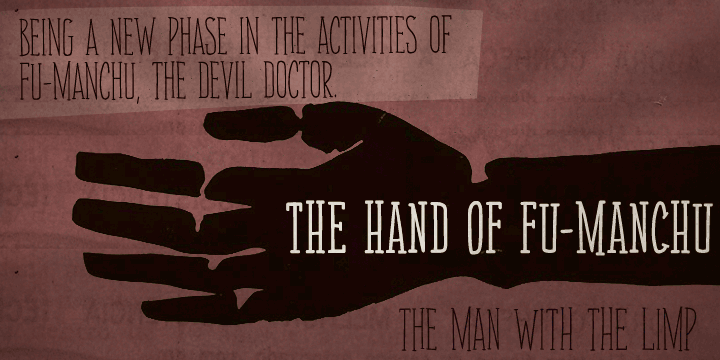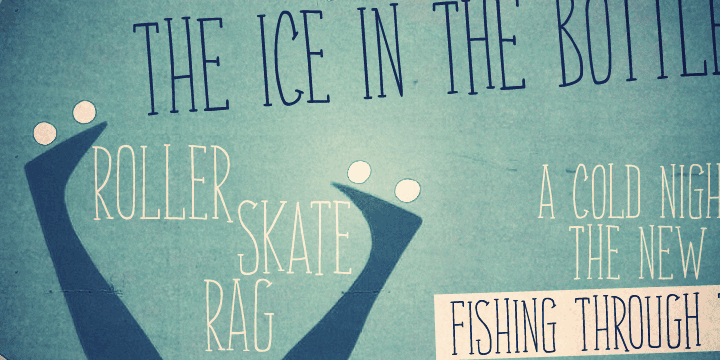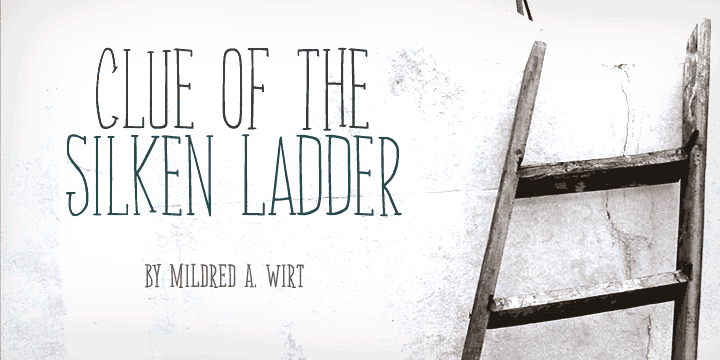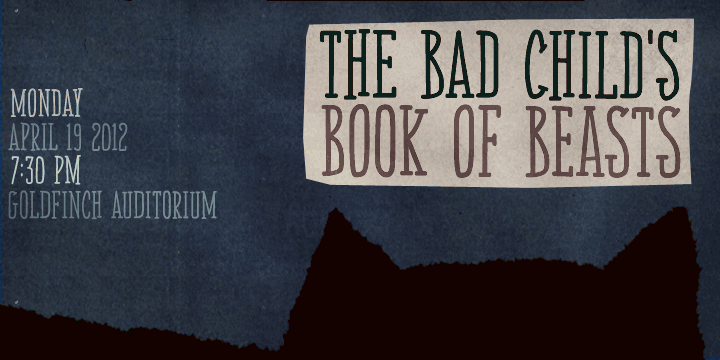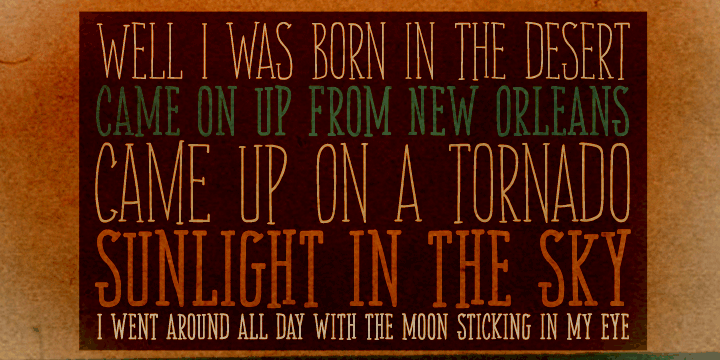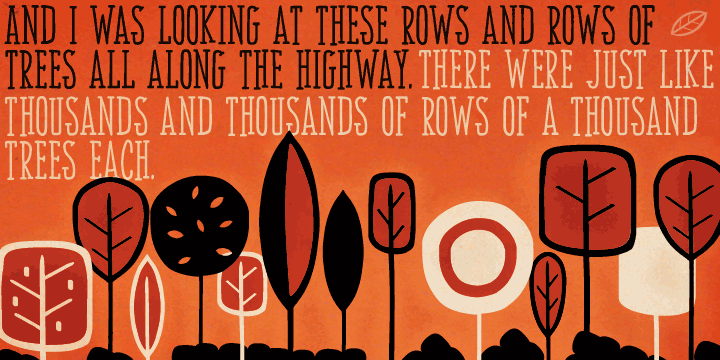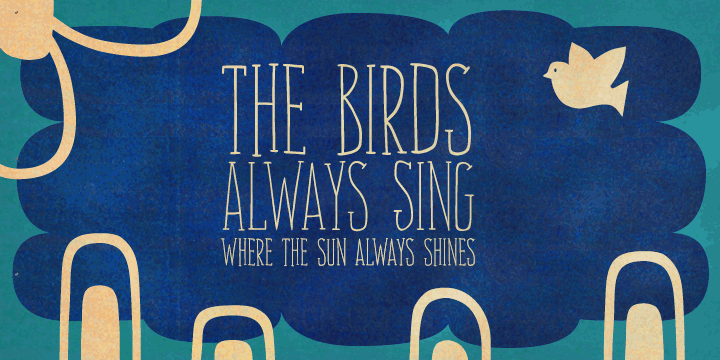
About the Soundtrack Font
About Soundtrack Font Family Simple and charming, Soundtrack is a lively all-caps font that brings two versions for each letter. Make your choices by simply typing the upper or lower case keys or switch on the Contextual Alternates feature on any OpenType savvy program to instantly alternate between lettershapes. Versatile,
Soundtrack comes in two weights and is suited for a wide range of display applications, doing great also for small chunks of text. Handy dingbats are included in both versions. Pick them using a glyphs palette or character map or just turn on the OpenType ornaments feature for accessing them directly from your keyboard.Let music sound! Designers: Erica Jung, Ricardo MarcinPublisher: PintassilgoPrintsFoundry: PintassilgoPrintsDesign Owner: PintassilgoPrintsMyFonts debut: Feb 20, 2012 Soundtrack™ is a trademark of PintassilgoPrints.